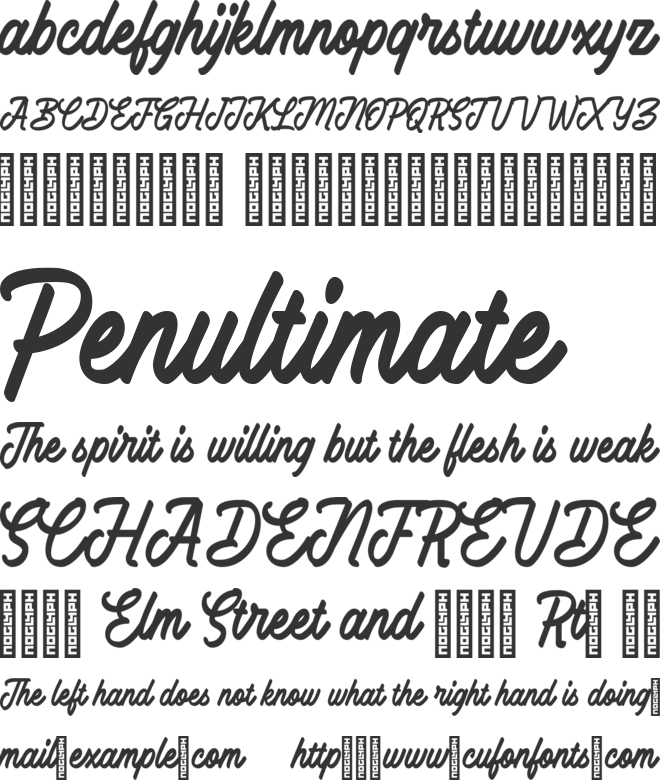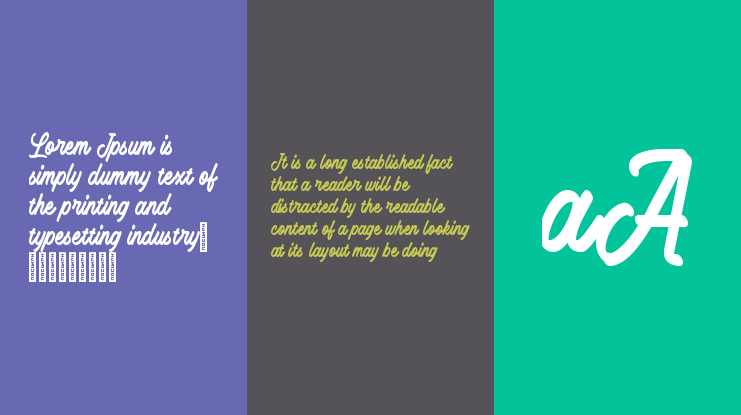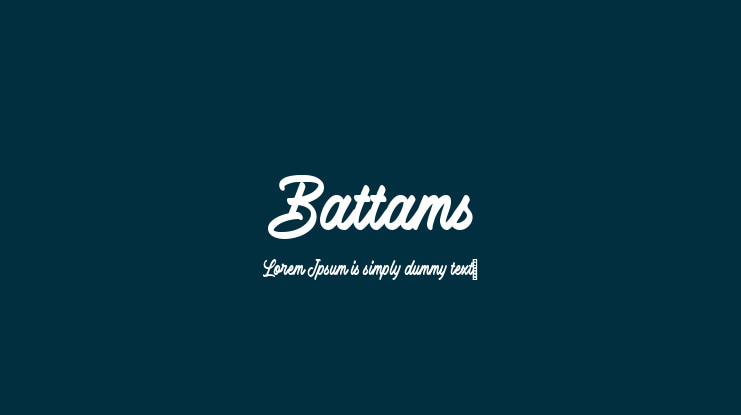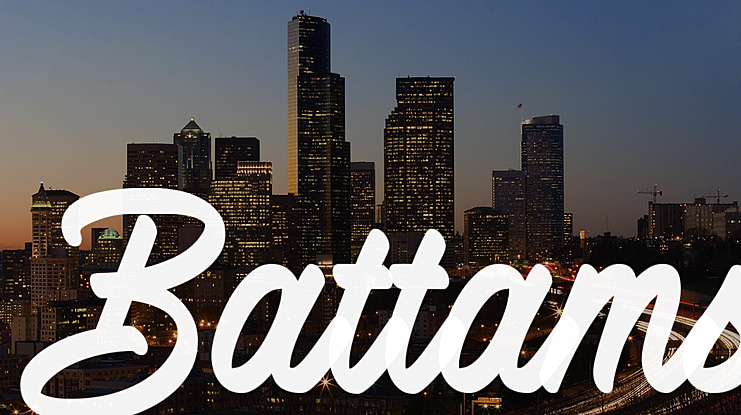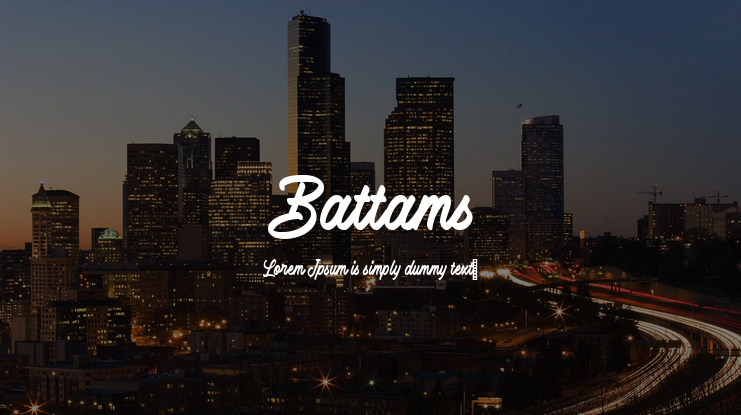
Battams Font
Introducing Battams No 25 , a versatile typeface for every needs. This font is made by constant weight with oval tip line. We want to make a stylist font that the uppercase version is usable. So we also made the smallcaps on this one. You could switch on the smallcaps button features to use it. We also use contextual alternates not just stylistic alternates, because it’s very useful. So don’t forget to turn on the contextual alternates feature on your software. So, what are you waiting for?